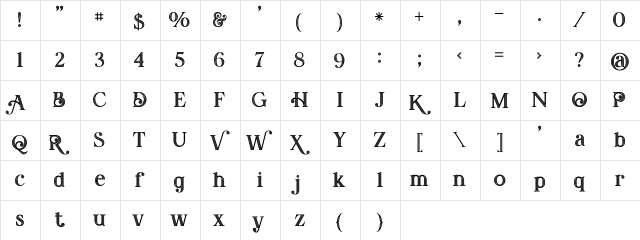
Amadeust Inline Inline
Design Context for Amadeust Inline Typeface
Amadeust Inline brings ornamental detail and strong personality to headlines and identities, where visual impact matters more than quiet functionality.
Font Pairing: Pair with a clean neutral sans-serif for body copy to let Amadeust Inline's character lead without overwhelming the composition.
Pro Tip: Use Amadeust Inline exclusively at display sizes — it was designed to be seen, not read at length. Let a neutral companion handle body copy.